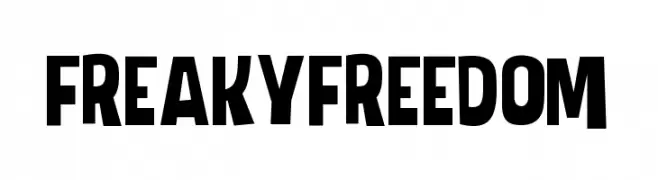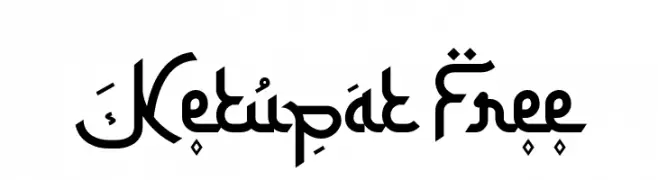
A decorative font with intricate flourishes and a modern twist.
An ornate blackletter font with gothic and medieval influences.
A bold, ornate Blackletter font with intricate serifs and flourishes.
A modern, italic sans-serif font with clean lines and balanced proportions.
A pixelated, monospaced font with a retro digital aesthetic.
A playful, casual handwritten font with smooth, flowing curves.
Bold, uppercase font with a modern, condensed style.
A bold, cursive font with interconnected letters and playful flourishes.
A bold, impactful font with thick, uniform strokes for a strong presence.
A geometric, robotic font with a modern and minimalistic design.